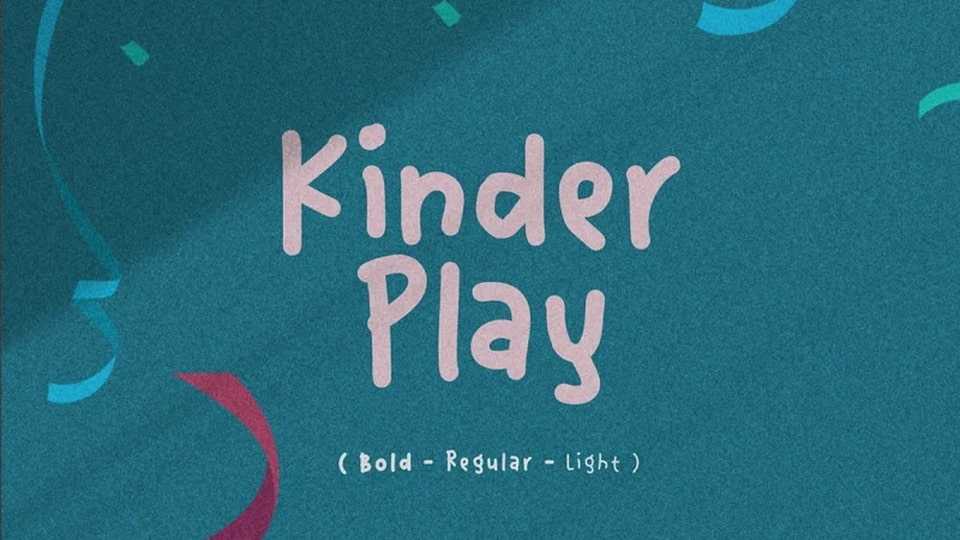
Download Kinder Play font, a charming, hand-drawn typeface that brings a playful and whimsical touch to any design, making it perfect for a variety of projects.